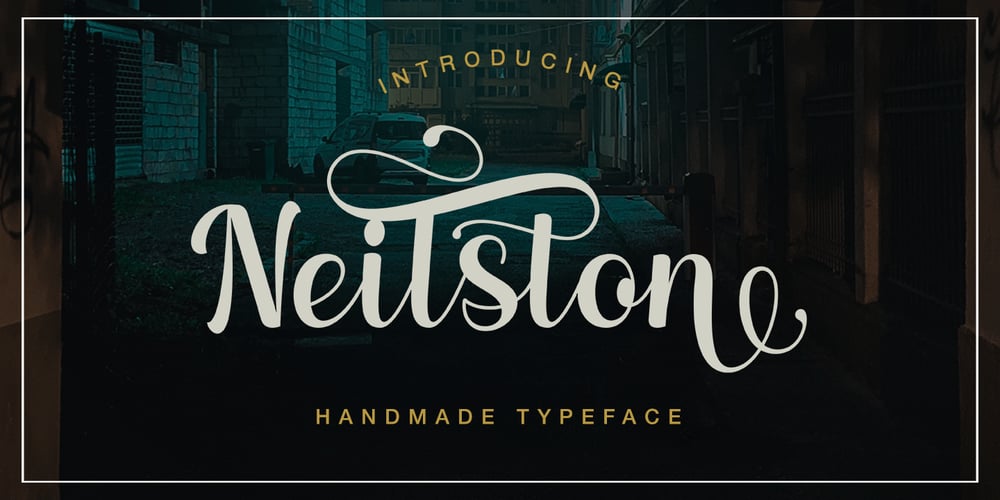
Neilston
Neilston font
Neilston Font Family was designed by Muhajir and published by Skinny Type. Neilston contains 1 styles and family package options. Neilston is a bold handmade font of beautiful bold typeface with an authentic touch. This includes OpenType features with PUA encoded such as alternatives and ligature. This font is perfectly made to be applied especially in logos, and various other formal forms such as invitations, labels, logos, magazines, books, greeting / wedding cards, packaging, fashion, make up, stationery, novels, labels or any type of advertising purpose.Feature:Uppercase & lowercase lettersNumbers and punctuation marksMultilingualPUA is encodedWe highly recommend using a program that supports OpenType features and the Glyphs panel like many Adobe and Corel Draw applications, so you can see and access all Glyph variations.